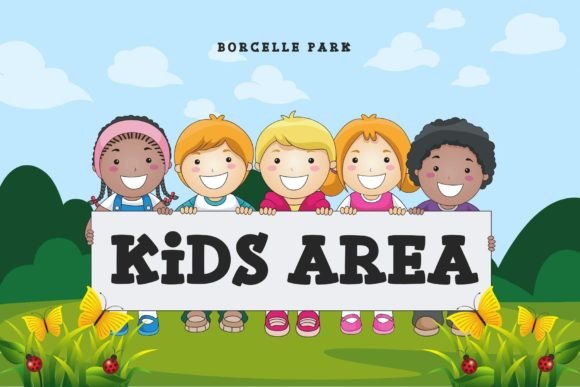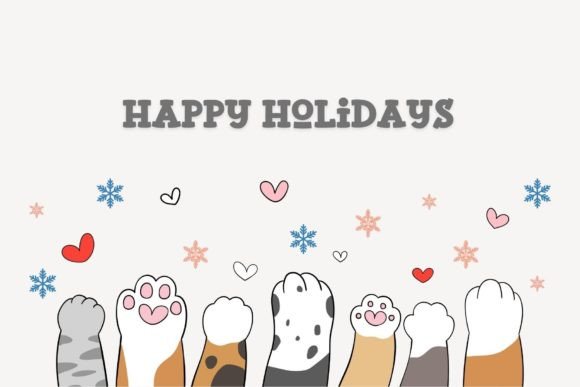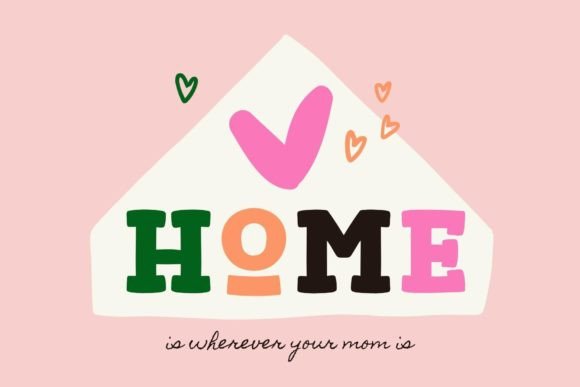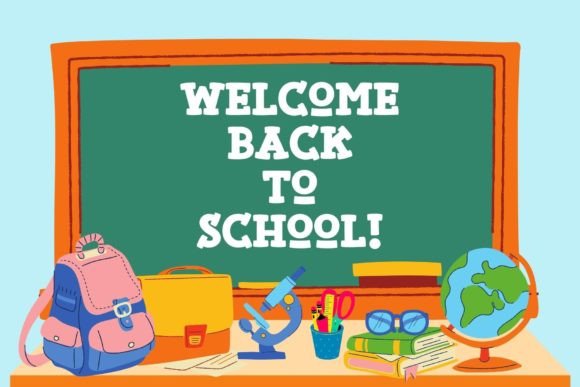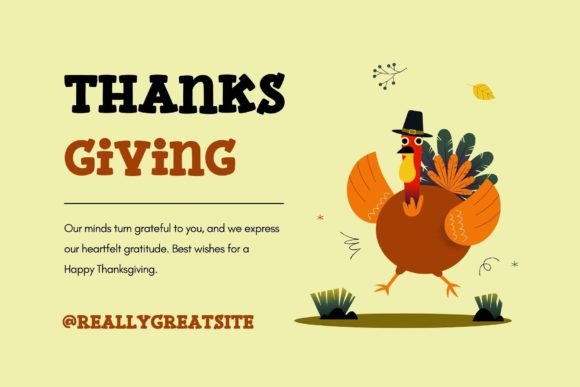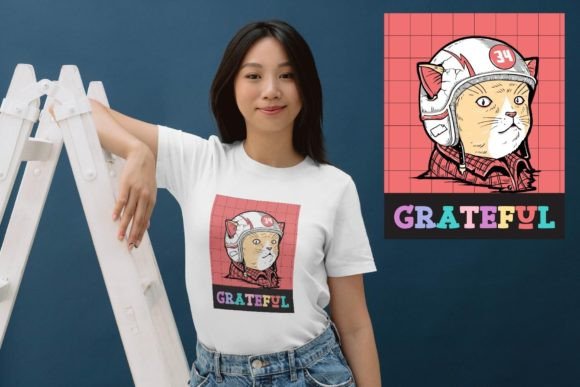
Designing with a Twist: The Fox Pumpkin Font
One of the key elements that can elevate your design from good to great is the right font. That’s where the Fox Pumpkin Font comes in – a bold and playful slab serif font that adds a captivating and energetic touch to your designs. With its vibrant and expressive design, you can create attention-grabbing headlines, t-shirt typography, banners, product labels, and more.
Whether you’re a seasoned designer or just starting out, the Fox Pumpkin Font is a valuable addition to your toolkit. Its versatility and eye-catching presence make it a must-have for any project that needs a little extra oomph.
Fox Pumpkin Font Key Features
- Size and Resolution: The font comes in a single size, but it is highly scalable, making it suitable for use in various design applications, including signage, logos, and digital displays.
- Unique Characteristics: Fox Pumpkin Font features a distinctive, hand-drawn design with intricate details, giving it a whimsical and playful feel, perfect for adding a touch of personality to designs.
- Character Set: The font includes a comprehensive character set, including uppercase and lowercase letters, numbers, punctuation marks, and special characters, making it suitable for use in a wide range of applications.
- Font Weight and Style: Fox Pumpkin Font comes in a single weight, but it has a range of styles, including regular, bold, italic, and bold italic, allowing designers to achieve the desired level of emphasis and visual interest.
Designer Review: Fox Pumpkin Font
Overall, I found the Fox Pumpkin Font to be a charming and whimsical addition to any design project. ✨ It features a unique blend of playful and rustic elements that can add a touch of warmth to your typography.
- ✨ Distinctive design aesthetic that sets it apart from more traditional fonts
- ✨ Great for projects that require a touch of whimsy or playfulness
- ✨ Works well in both digital and print contexts
- ⚠️ May not be suitable for projects that require a more formal or professional tone
- ⚠️ Can be difficult to read at smaller font sizes
- ⚠️ May not be compatible with all font rendering engines or systems
Overall, I think the Fox Pumpkin Font is a great choice for designers who want to add a touch of personality to their projects. While it may not be the best fit for every project, it’s definitely worth considering for designs that require a playful and whimsical touch.
For best results, use Fox Pumpkin Font for headings and titles to create a playful and whimsical atmosphere. It’s also suitable for children’s book illustrations, party invitations, and social media graphics.
Remember to adjust the font size and color to ensure legibility and visual balance in your design.